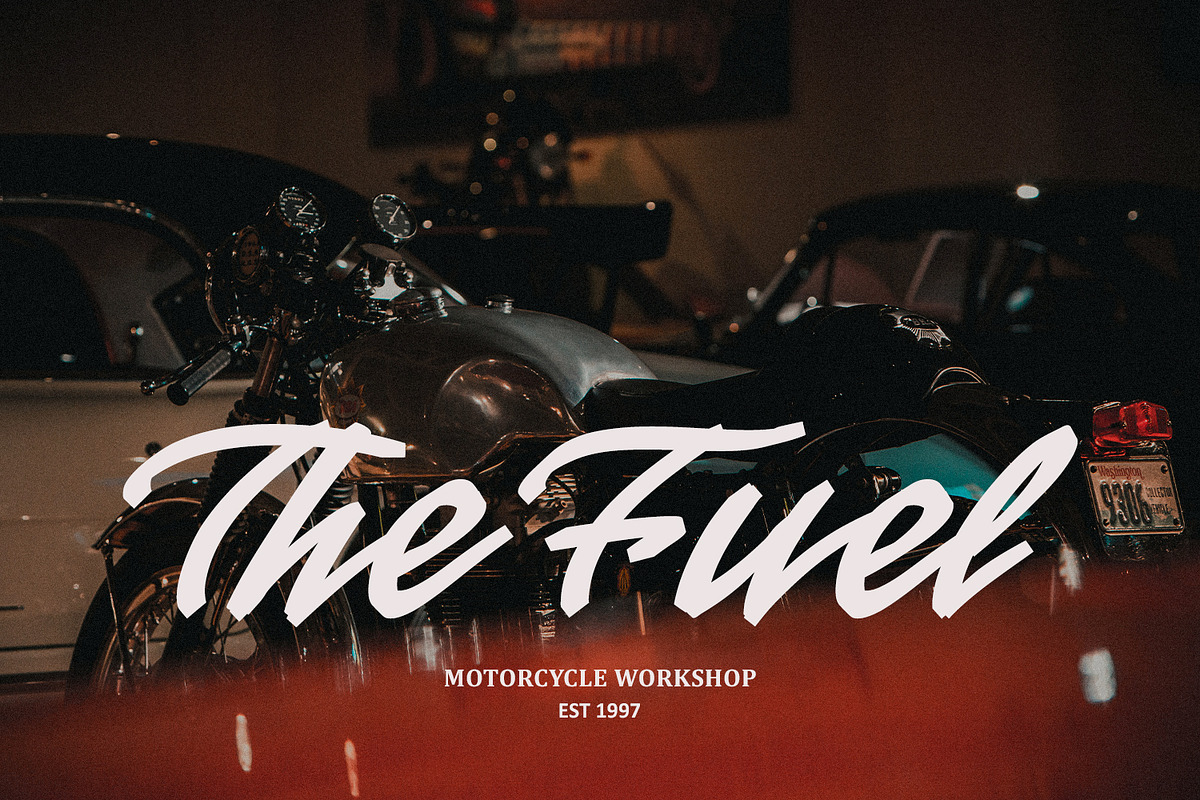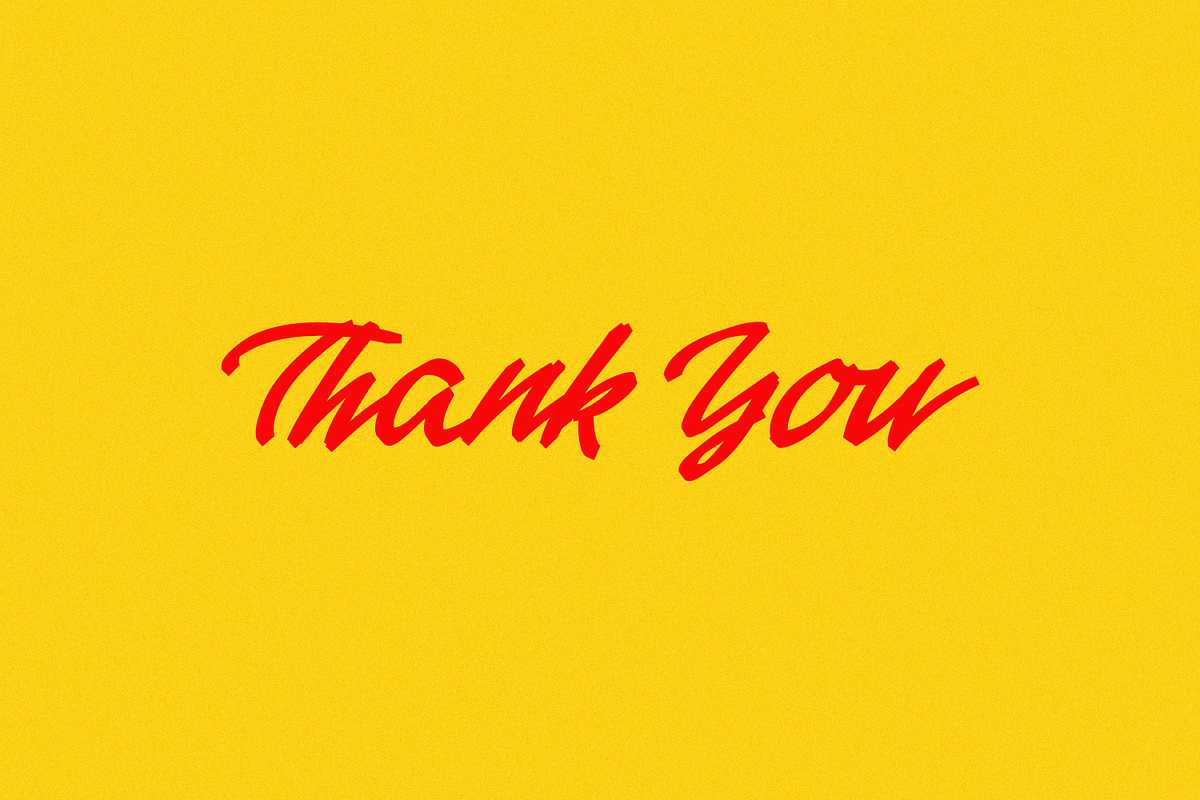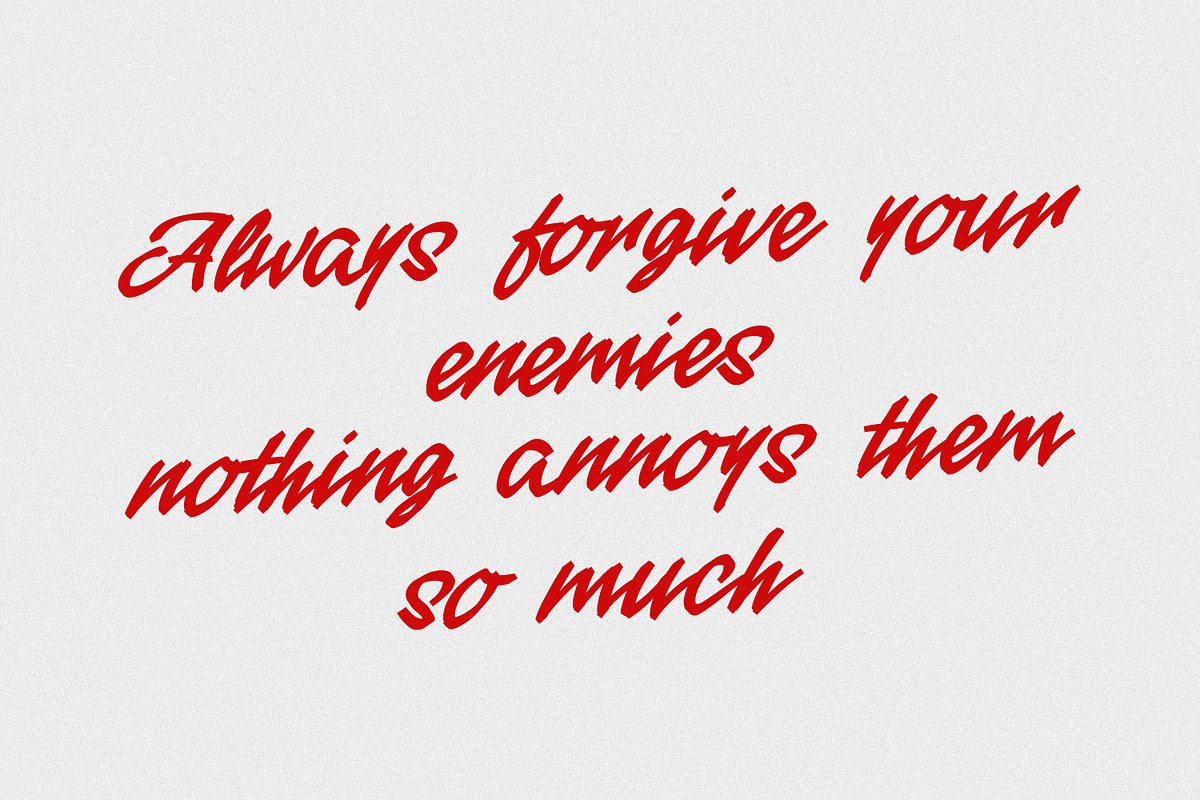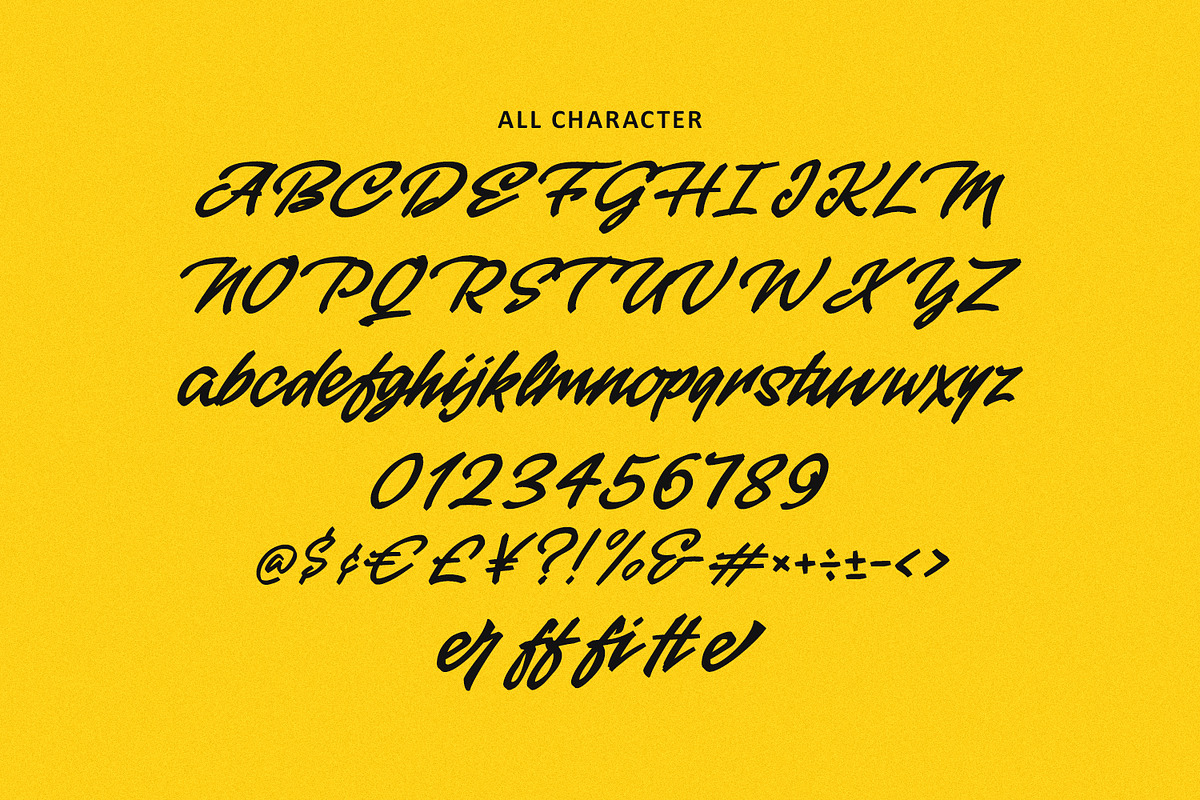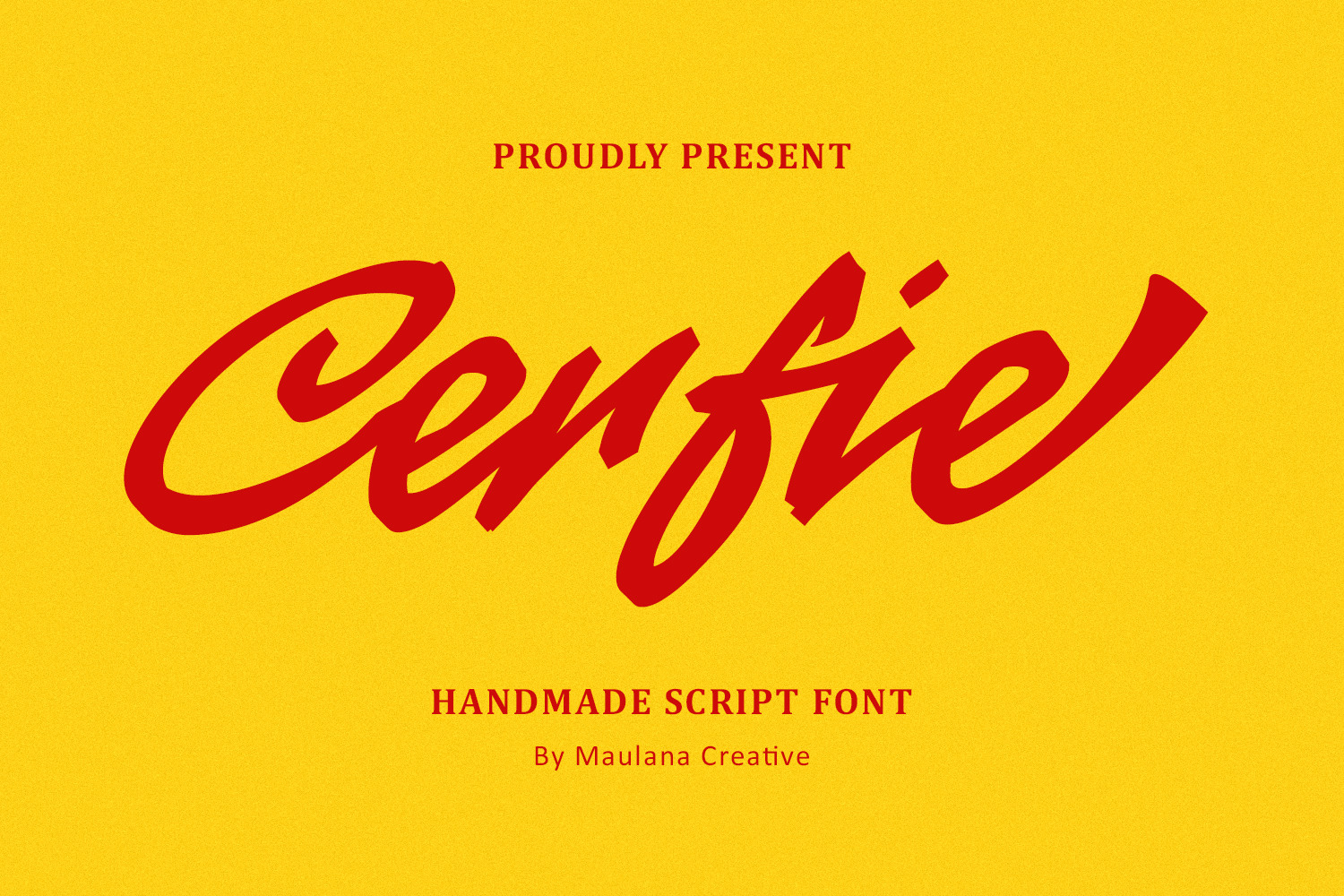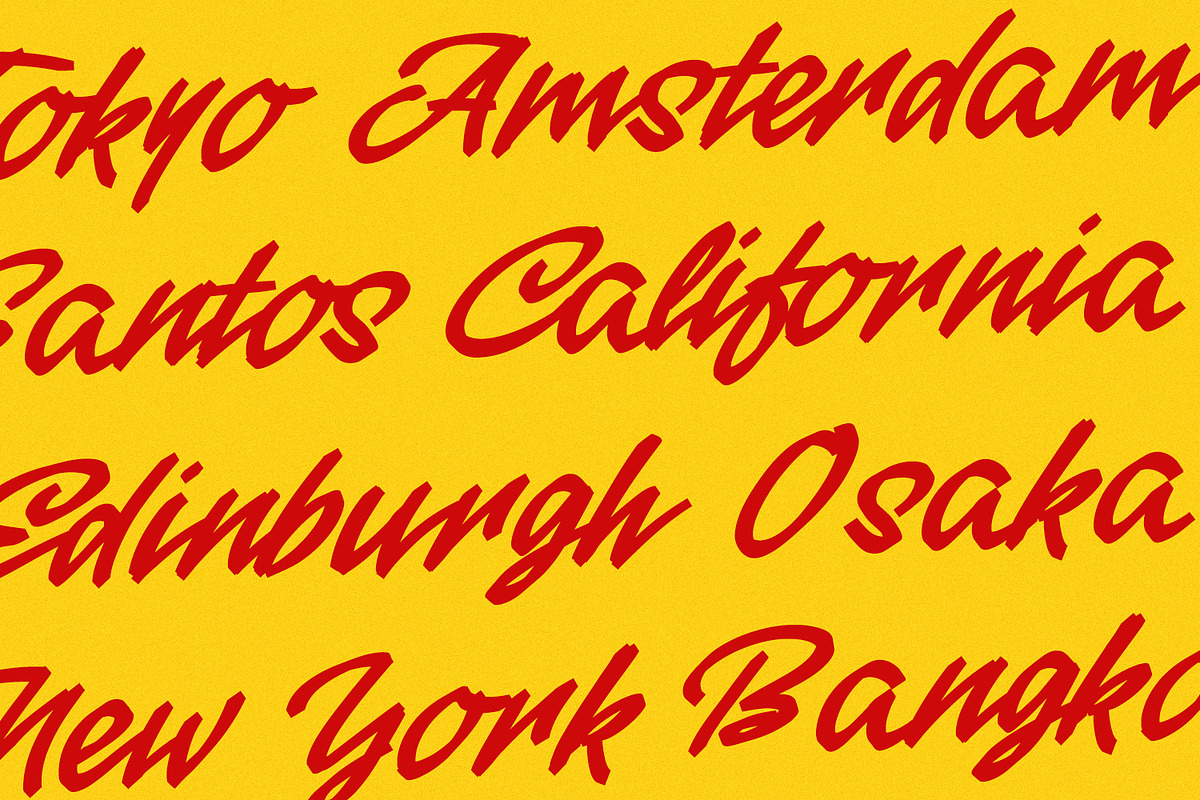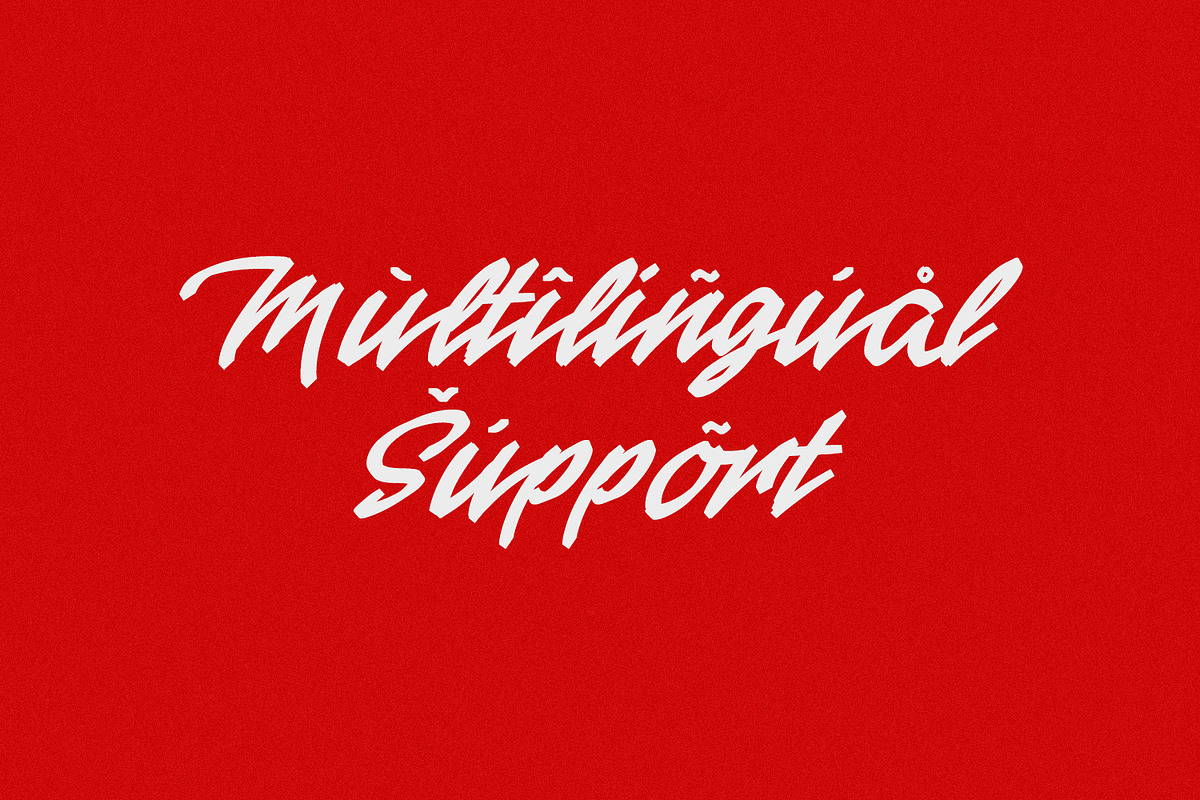
Cerfie Script Handmade Font
Cerfie Script Handmade Font is a bold, energetic, and expressive script typeface designed to give your projects a dynamic and handmade feel. With its thick strokes and flowing, brush-like quality, Cerfie is perfect for high-impact display use, instantly grabbing attention. This font is versatile, suitable for a wide range of applications from branding businesses to engaging quotes and international campaign materials. It includes a full set of uppercase and lowercase letters, numbers, punctuation, and essential glyphs, as well as multilingual support, making it an excellent choice for designs that require a retro, sporty, or confident hand-drawn look. Cerfie brings a touch of raw authenticity and cool, custom style to any design.